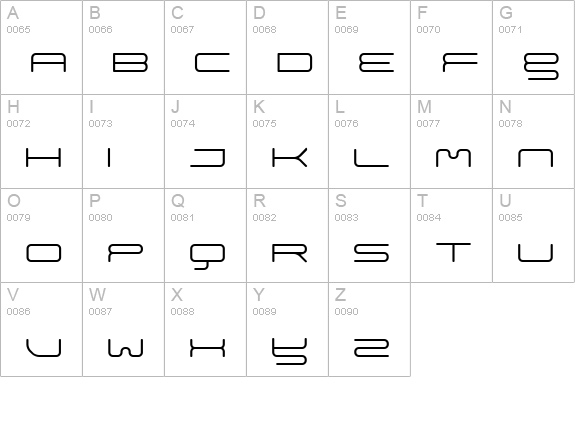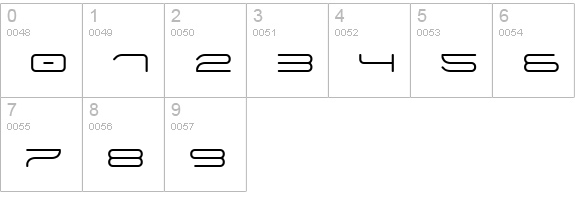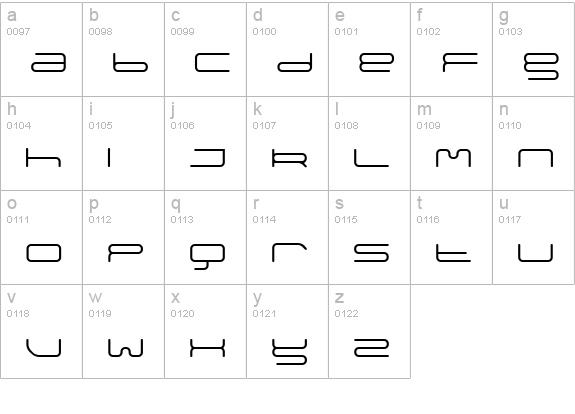
megathin Font Details
Introducing Megathin Font, a sleek and modern typeface that exudes elegance and sophistication. With its ultra-thin lines and minimalist design, Megathin Font is perfect for adding a touch of refinement to any project. Whether you're designing a logo, creating a brochure, or crafting a website, this font will make your text stand out with its unique style. And the best part? Megathin Font is completely free to download at FontsMarket.com! Now you can elevate your design projects without breaking the bank. Don't miss out on this opportunity to add a touch of class to your work with Megathin Font. Download it today and start creating stunning designs that are sure to impress!